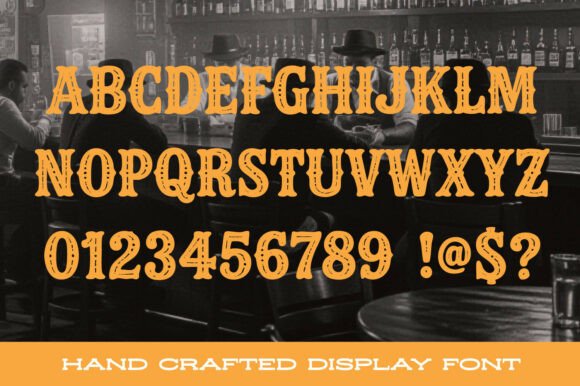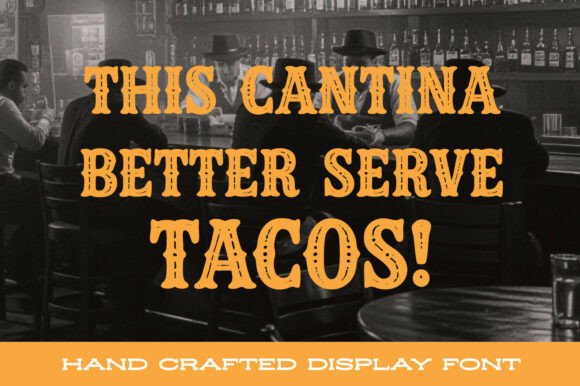
Cantinero Font: A Vintage Western-Style Display Font with a Rustic Charm
Are you looking for a font that can add a touch of rustic charm and bold personality to your designs? Look no further than the Cantinero Font, a vintage Western-style display font inspired by hand-painted cantina signs and sun-faded lettering from the desert Southwest. This unique font blends bold slab serifs with weathered edges, making it perfect for taco trucks, tequila labels, and festive menus that call for flavor and attitude.
The Inspiration Behind Cantinero Font
The Cantinero Font is inspired by the classic signage of the American West, where hand-painted letters and weathered wood meet rustic charm. The font’s creator drew inspiration from the sun-faded lettering and hand-painted cantina signs that dot the desert landscapes of the Southwest. The result is a font that exudes a sense of nostalgia and authenticity, perfect for designers and crafters looking to add a touch of the Wild West to their work.
Key Features of Cantinero Font
So, what makes the Cantinero Font so special? Here are a few key features that set it apart:
- Bold Slab Serifs: The Cantinero Font features bold slab serifs that give it a sturdy, rugged feel. Perfect for headlines and titles, these serifs add a touch of drama and flair to any design.
- Weathered Edges: The font’s weathered edges give it a worn, vintage look that’s perfect for designs that need a touch of rustic charm.
- Rustic Charm: The Cantinero Font has a distinctly rustic feel, with a warm and inviting personality that’s perfect for designs that need a touch of the Wild West.
Uses for Cantinero Font
So, what can you use the Cantinero Font for? The possibilities are endless, but here are a few ideas to get you started:
- Taco Trucks: Add a touch of the Wild West to your taco truck’s branding with the Cantinero Font. Perfect for signage, menus, and promotional materials.
- Tequila Labels: Give your tequila labels a bold, rugged look with the Cantinero Font. Perfect for bottles, packaging, and marketing materials.
- Festive Menus: Add a touch of rustic charm to your restaurant’s menus with the Cantinero Font. Perfect for special promotions, events, and limited-time offers.
- Wedding Invitations: Use the Cantinero Font to add a touch of rustic charm to your wedding invitations, perfect for a country or Western-themed wedding.
- Signage: The Cantinero Font is perfect for signage, whether you’re looking to create a vintage-style sign for your business or a rustic welcome sign for your home.
Tips for Using Cantinero Font
Here are a few tips for getting the most out of the Cantinero Font:
- Use it boldly: The Cantinero Font is designed to make a statement, so don’t be afraid to use it boldly. Large font sizes and bold colors will help your design stand out.
- Pair it with contrasting fonts: The Cantinero Font works best when paired with contrasting fonts that provide a clear visual hierarchy. Try pairing it with a clean sans-serif font for a striking contrast.
- Experiment with colors: The Cantinero Font looks great in a range of colors, from bold brights to muted earth tones. Experiment with different colors to find the perfect look for your design.
The Cantinero Font is a unique and versatile font that’s perfect for designers and crafters looking to add a touch of rustic charm and bold personality to their work. With its bold slab serifs, weathered edges, and rustic charm, this font is perfect for a range of applications, from taco trucks to tequila labels and festive menus. Whether you’re looking to create a vintage-style sign or add a touch of the Wild West to your designs, the Cantinero Font is a great choice.